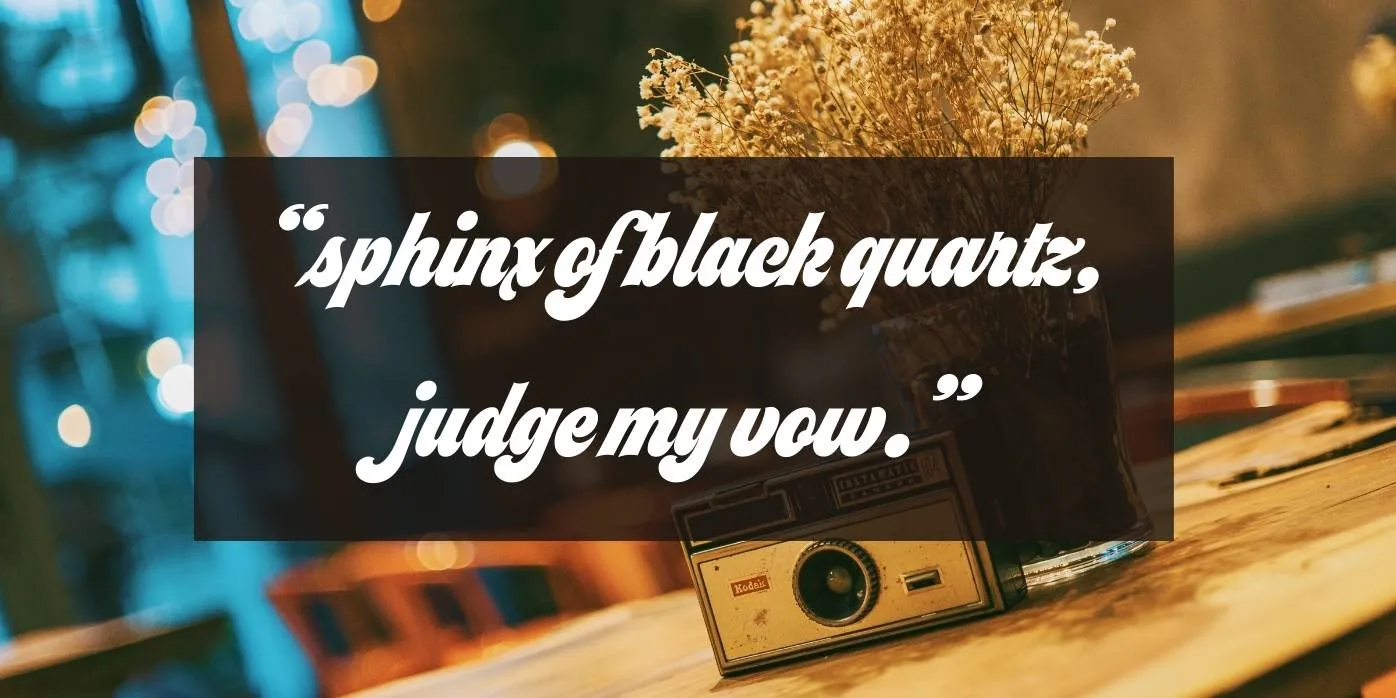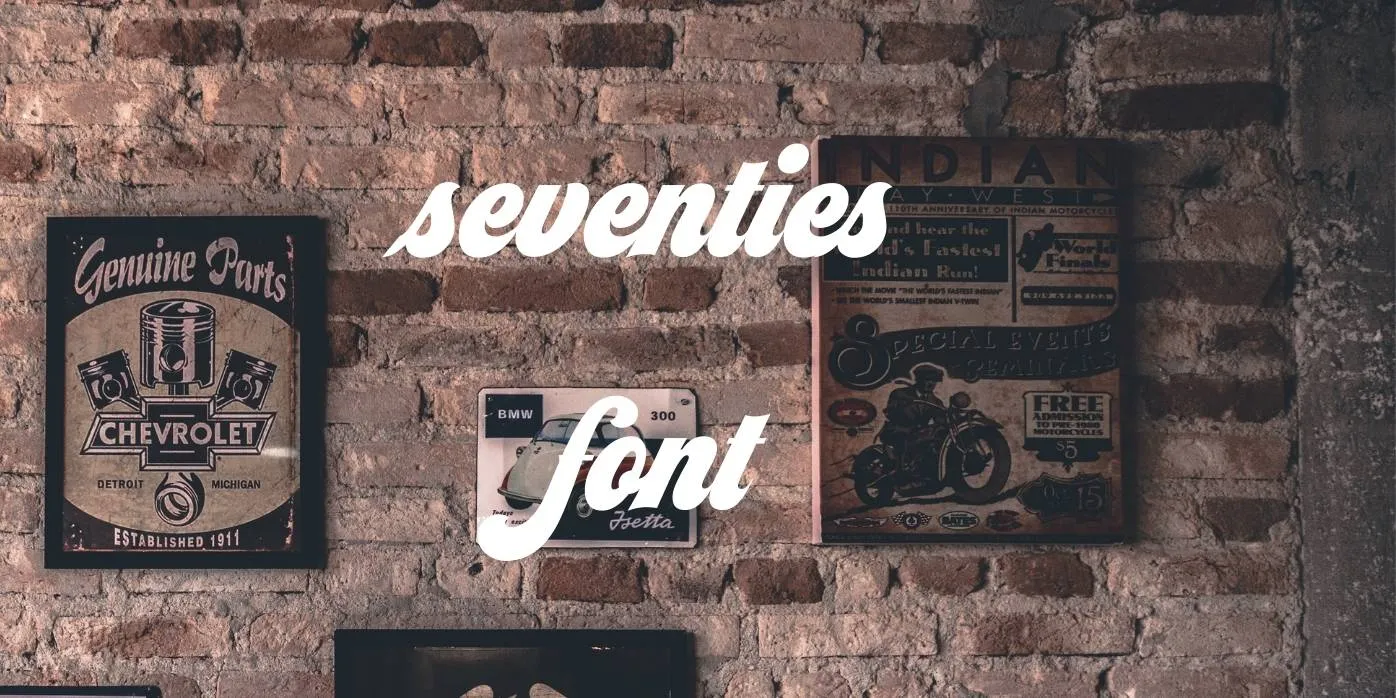
Seventies Font
Seventies Font is designed by very famous designer Maximiliano Sproviero. This typeface belongs to the Calligraphy typeface. This amazing Font has a very unique and interesting design.  This classic font is perfect for retro and vintage designs. This marvelous font also has a very seventies feeling to it, which can be great for certain types of projects.  If you are looking for an interesting and different seventies font, then this font is a great option!
This staggering font comes in unique styles and Glyphs. Due to its unique Glyphs, this typeface is used for a variety of different projects. This cute font is perfect for logos, posters, t-shirts, and more! This classic font can also give your project that seventies feeling that you are looking for.
This has keen and clean features and round corners. This typeface will provide the facility of a Tool generator by different graphics make easily.